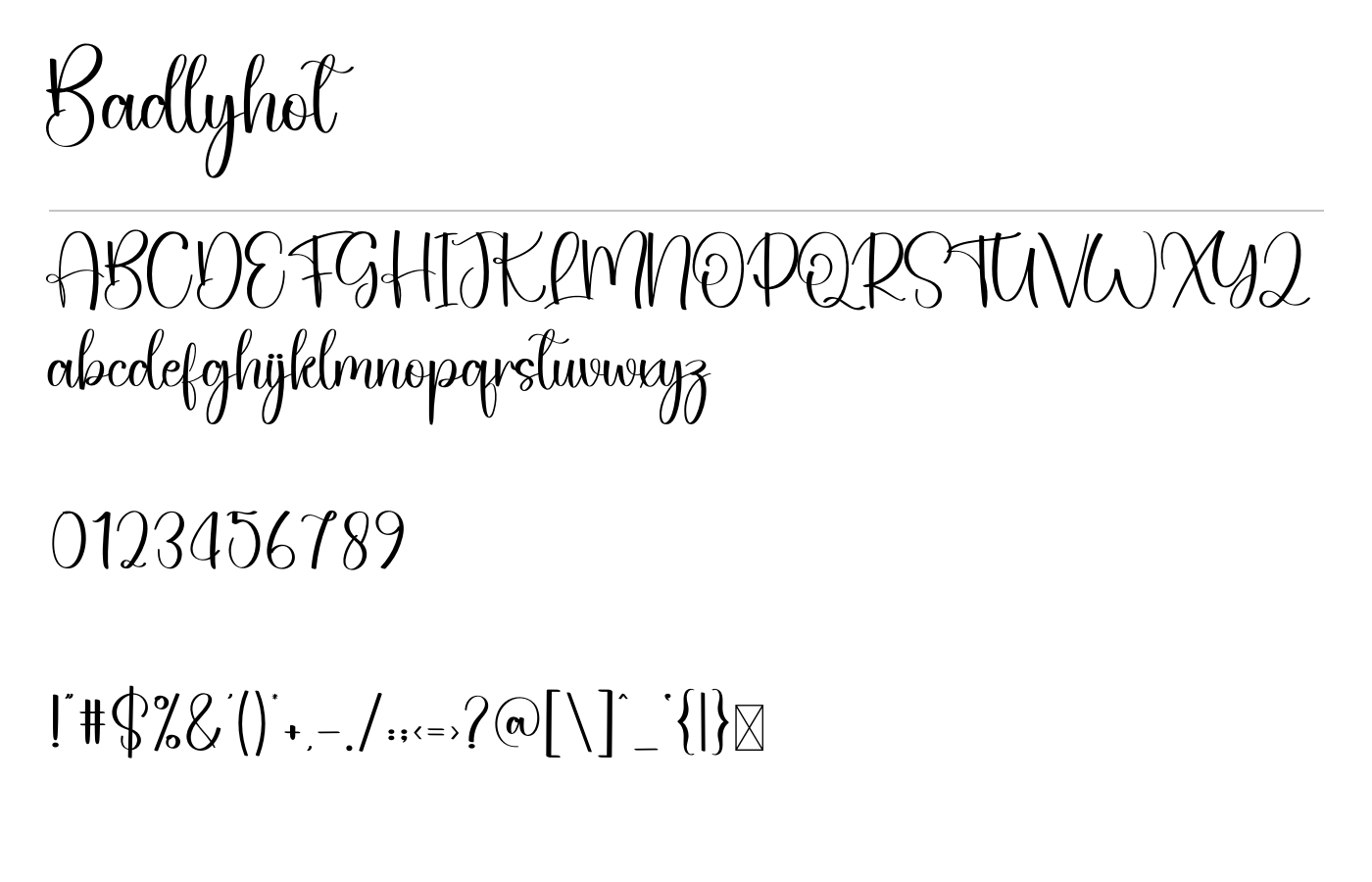
Badlyhot is a playful and elegant script font with tall, slender letterforms and delicate, flowing strokes. Its high contrast and whimsical curls give it a handwritten, artistic feel, making it perfect for creative branding, invitations, and feminine design projects that seek a stylish yet personal touch. This font shines best in headlines, logos, and decorative text where its charm can truly stand out.
Badlyhot Font
About Badlyhot Font